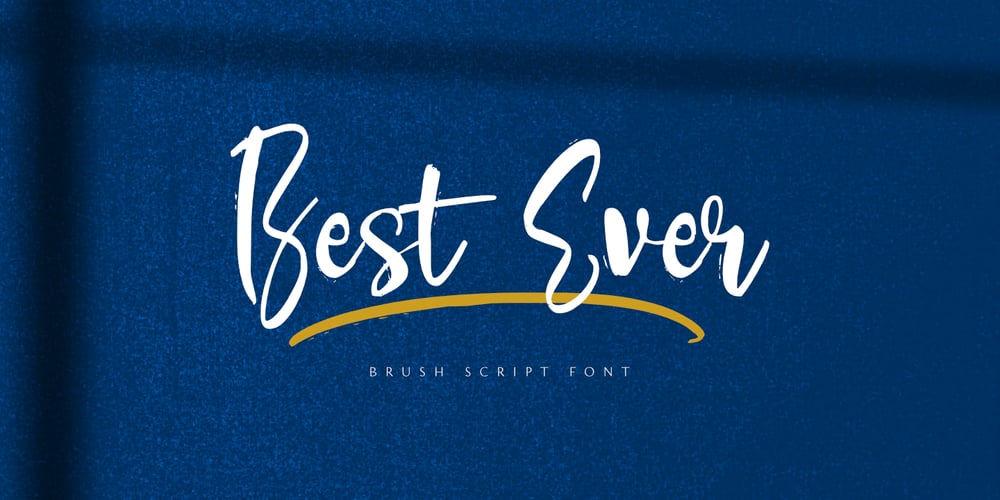
Best Ever Font Family was designed by Nurul Hidayani and published by Olivetype. Best Ever contains 1 styles and family package options. Best ever is a cool and trendy style script font. It’s cool textures looks stunning on any poster flyer or print.Features: Basic Latin A-Z, a-z, numbers, symbols, and punctuations Best Ever is supporting 66 Languages: from Afrikaans Albanian Catalan Danish to Dutch English Spanish Swedish Zulu. Accented Characters : ÀÁÂÃÄÅÆÇÈÉÊËÌÍÎÏÑÒÓÔÕÖØŒŠÙÚÛÜŸÝŽàáâãäåæçèéêëìíîïñòóôõöøœšùúûüýÿžß Thank you